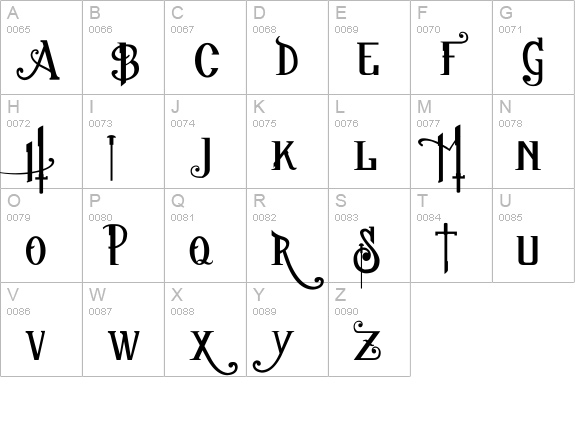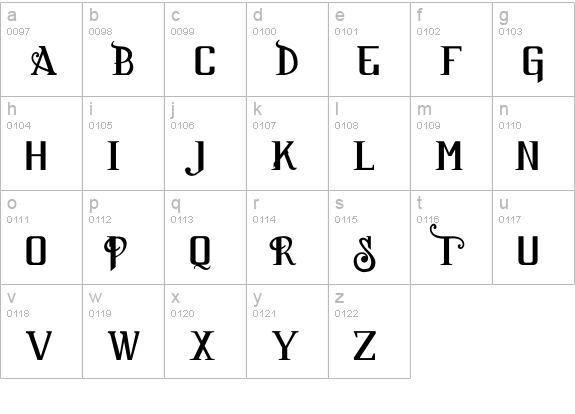
Sucker Font JC Font Details
Sucker Font JC is a captivating and eye-catching typeface that will surely make your designs stand out. With its unique and playful style, this font is perfect for adding a touch of fun and personality to your projects. Whether you're designing a logo, creating a poster, or working on a branding project, Sucker Font JC will instantly grab attention and leave a lasting impression. This font features bold and exaggerated letterforms, with each character carefully crafted to create a harmonious and balanced composition. The thick strokes and rounded edges give Sucker Font JC a friendly and approachable appearance, making it suitable for a wide range of applications. One of the best things about Sucker Font JC is that it is available for free. That's right, you can download this amazing font without spending a dime! Simply head over to FontsMarket.com and get your hands on this incredible typeface. It's never been easier to add a touch of creativity and personality to your designs. Whether you're a professional designer or a hobbyist, Sucker Font JC is a must-have in your font collection. Its versatility and unique style will help you create stunning visuals that will leave a lasting impression on your audience. So don't miss out on this opportunity to get your hands on this incredible font for free. Visit FontsMarket.com today and start exploring the endless possibilities with Sucker Font JC.